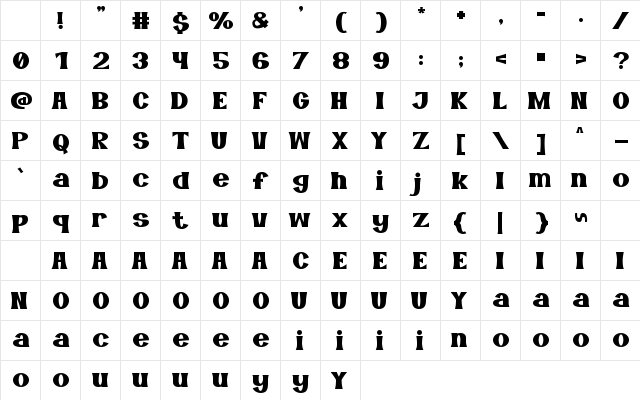
IMPACTFUL brings high-energy athletic personality to the page - its confident, muscular forms are built for impact.
Pro Tip: Use IMPACTFUL in all-caps headlines where its athletic energy can fully express itself. Pair with a solid, simple sans for supporting text.